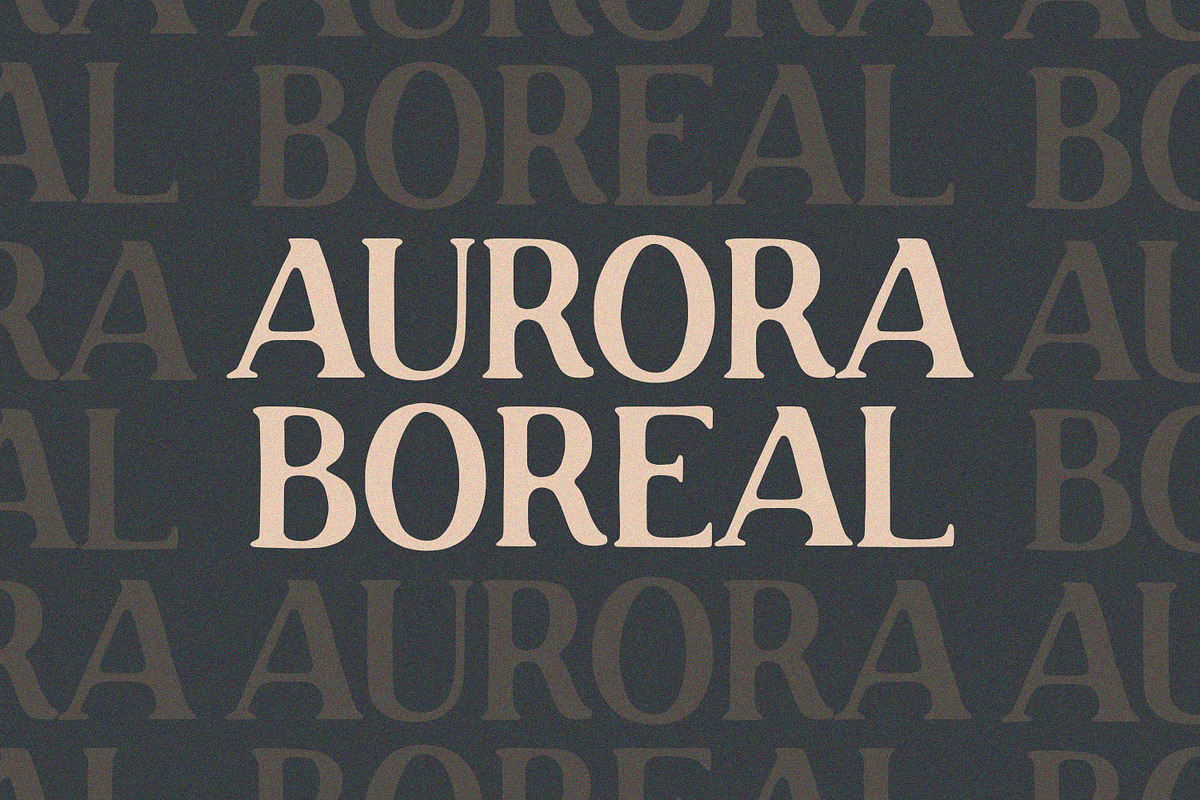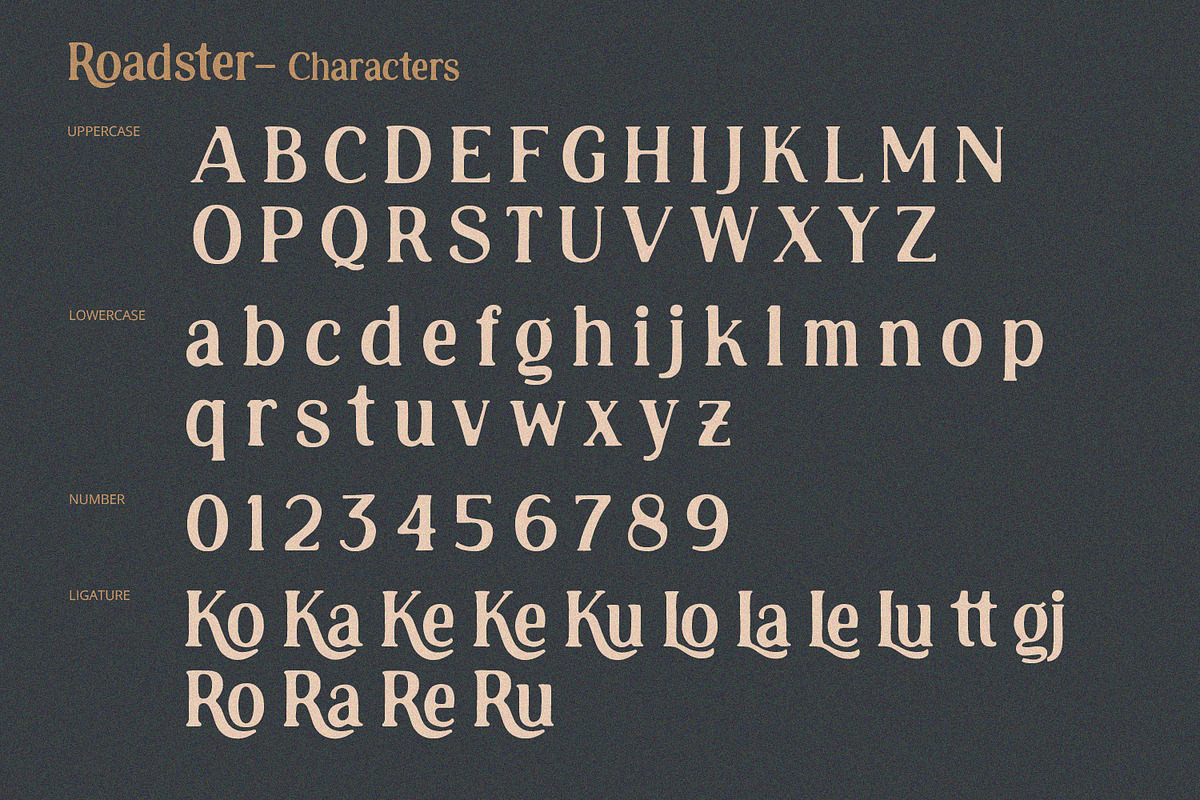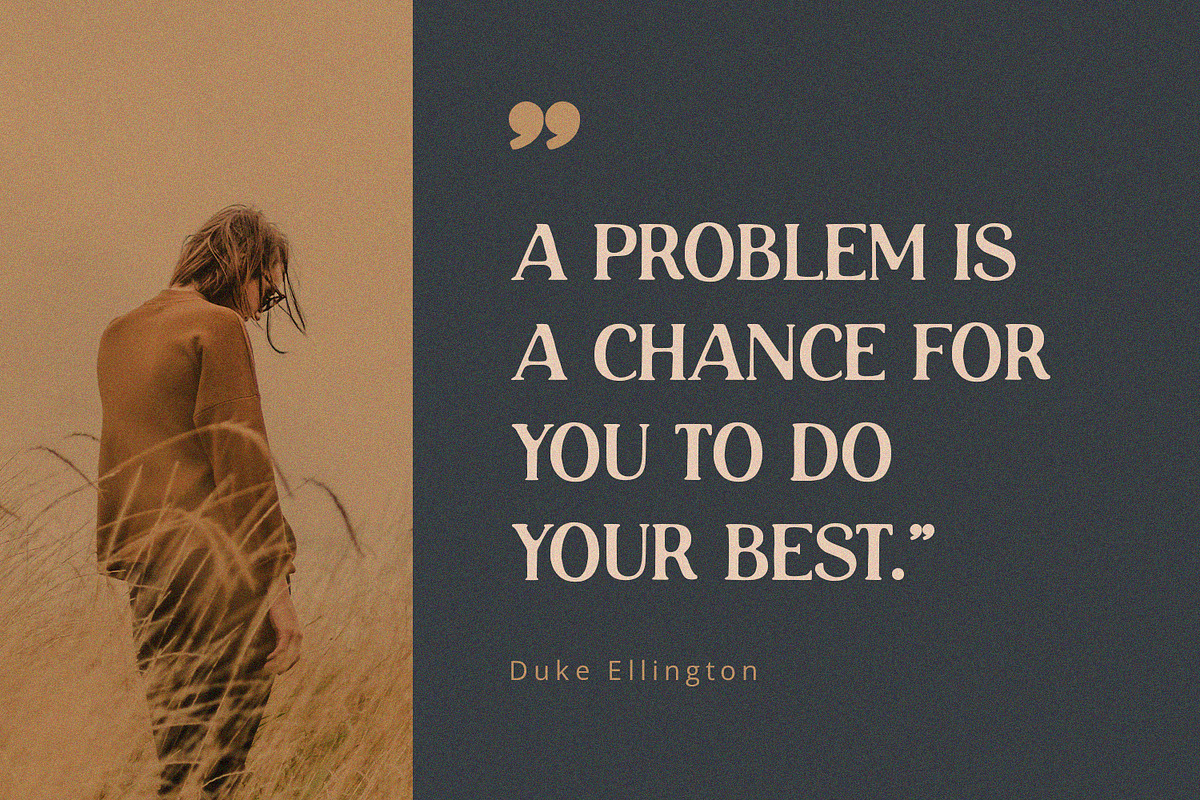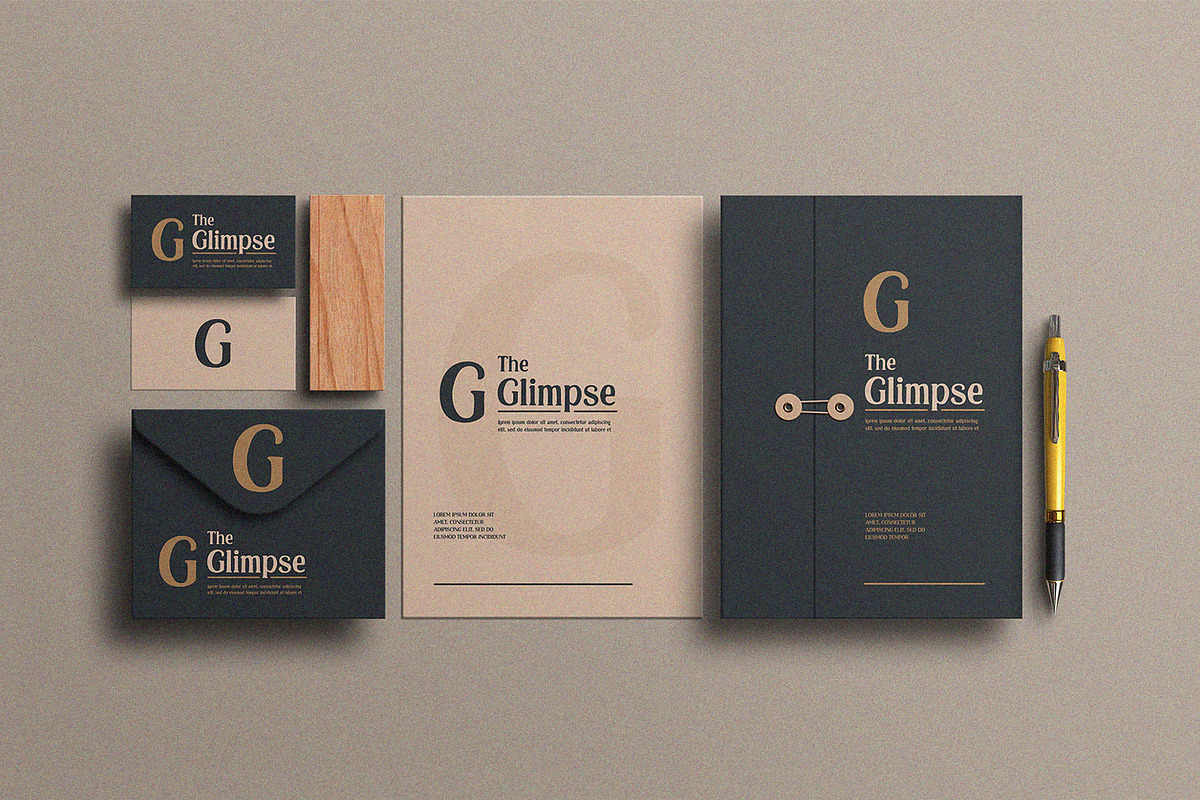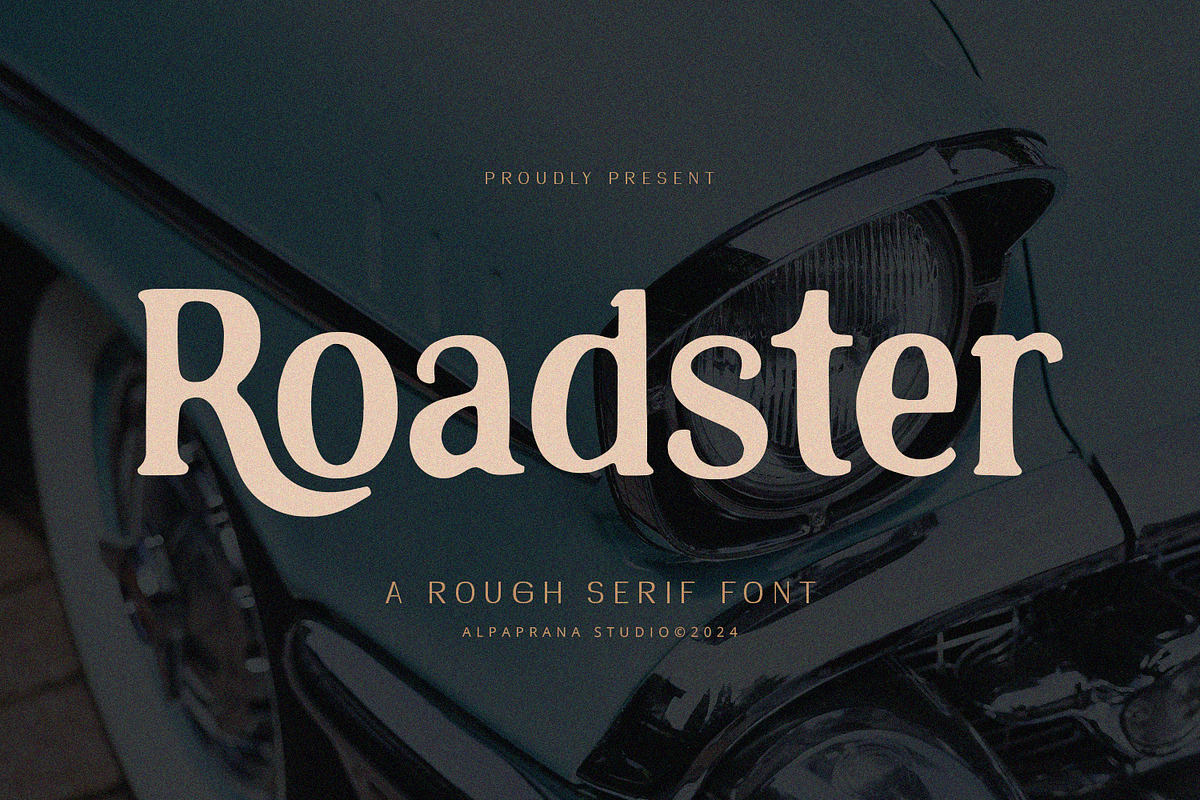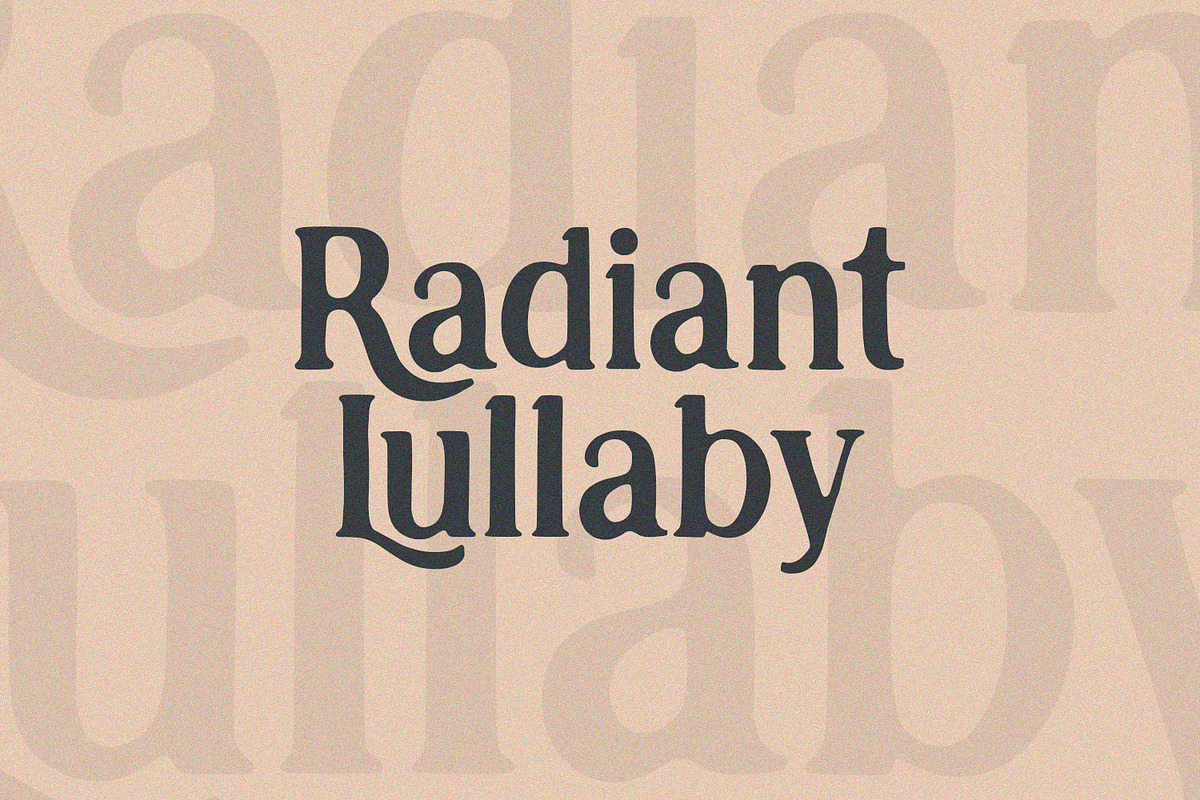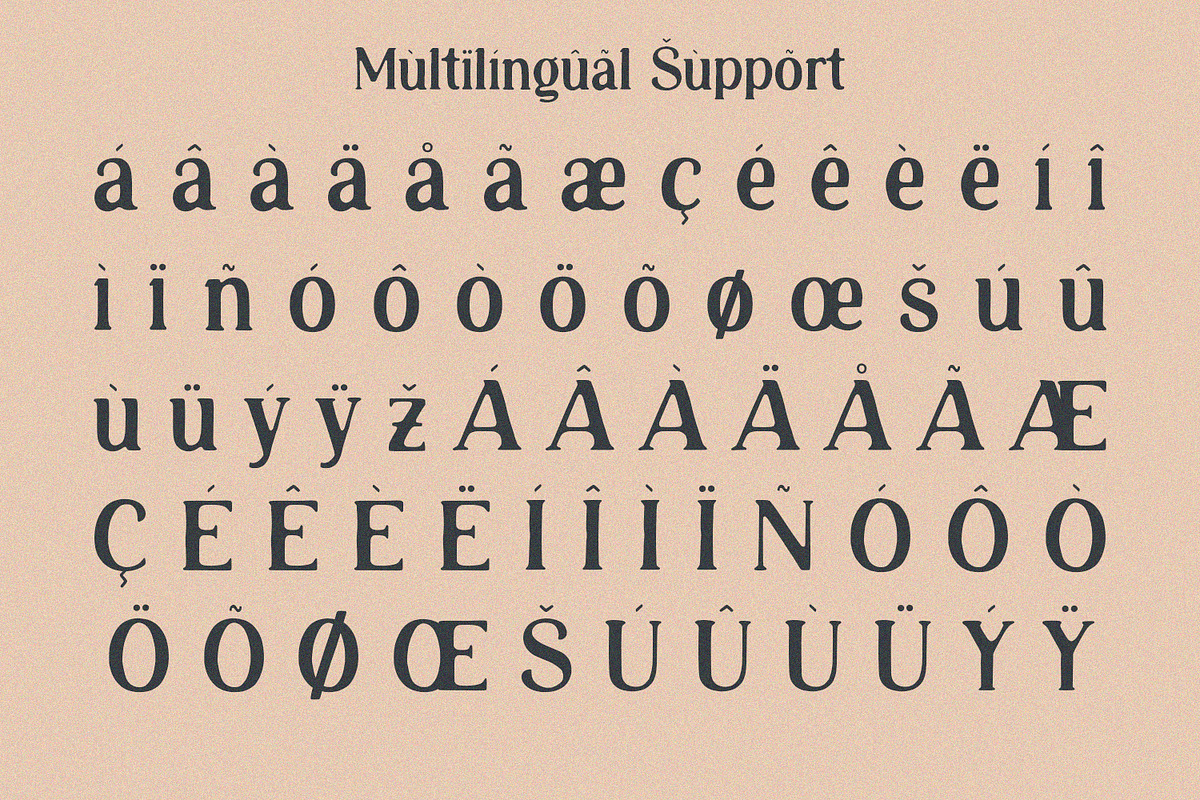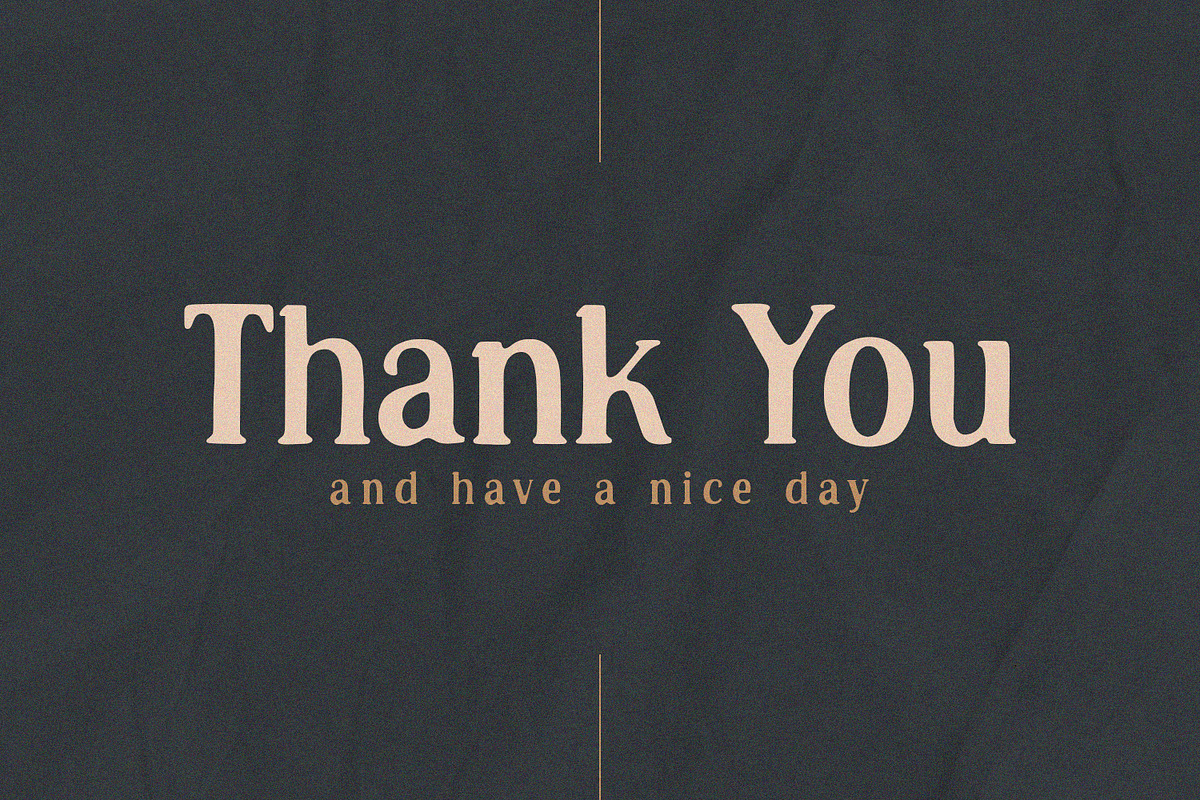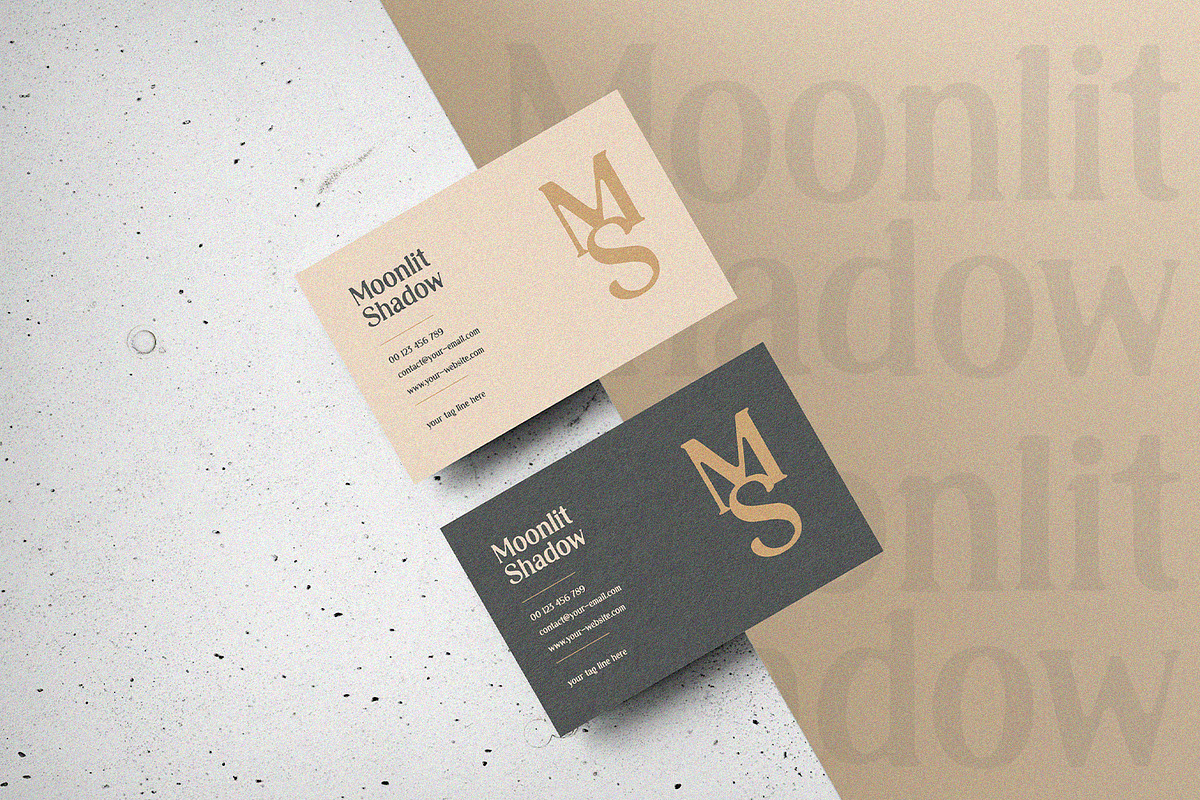
Roadster - Rough Display
Roadster is a rough display font with unique and classic feels. It will be perfectly used for Branding, Logo Design, Lettering, Logotype, Clothing, Poster, magazine, packaging, posters, shopping bags, t-shirts, book covers, photography, special events and other design project.